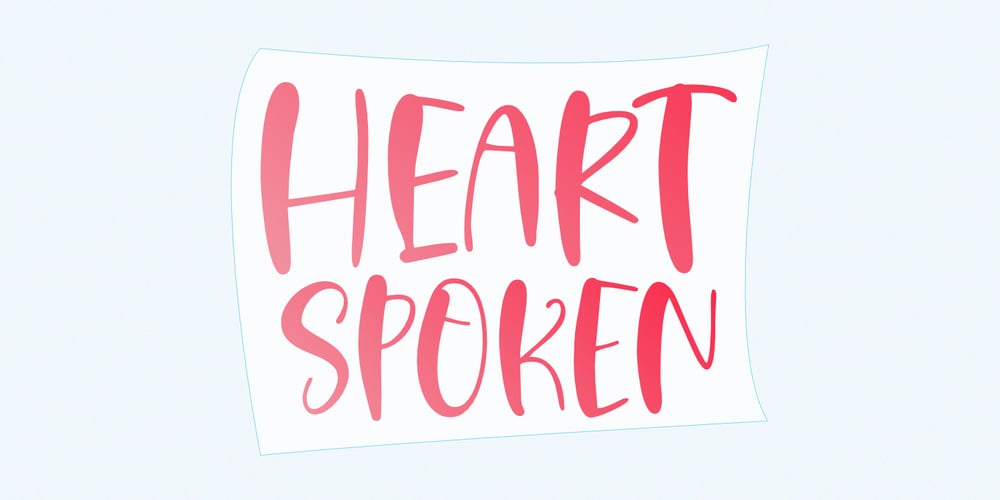
Heart Spoken Font Family was designed by Aldy Sidik and published by Epiclinez. Heart Spoken contains 1 styles and family package options. Heart Spoken is a fun handwritten font. A little bit quirky, this font looks incredibly playful in a wide variety of contexts.